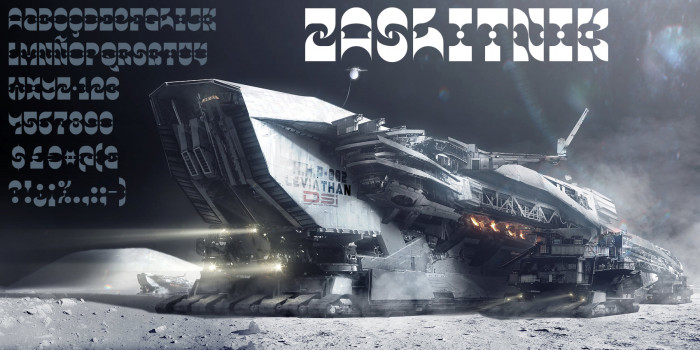
The name "zashitnik" comes from the great "Luna" sci-fi trilogy by Ian McDonald (meaning fighter with knives hired for trials by combat, literally "defender").